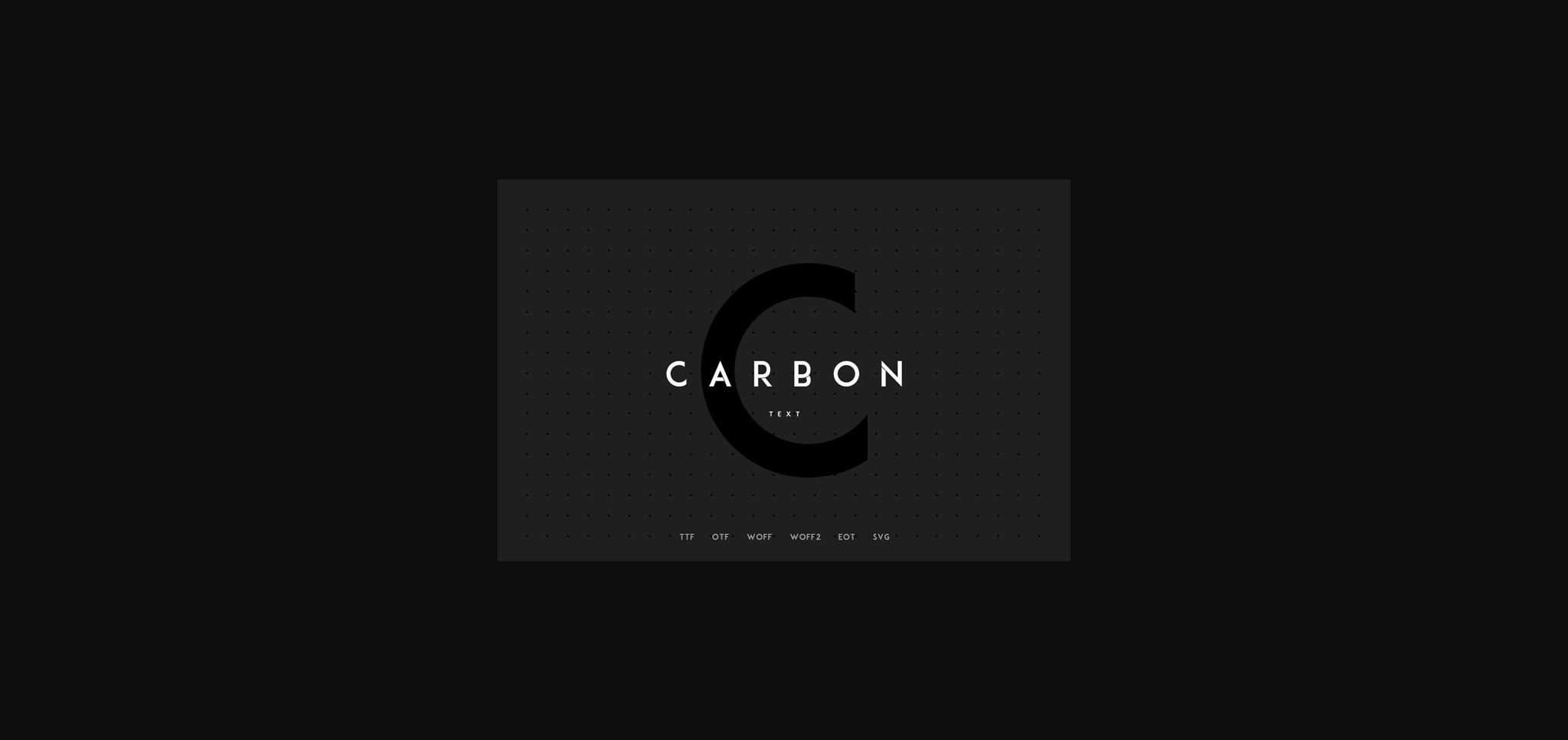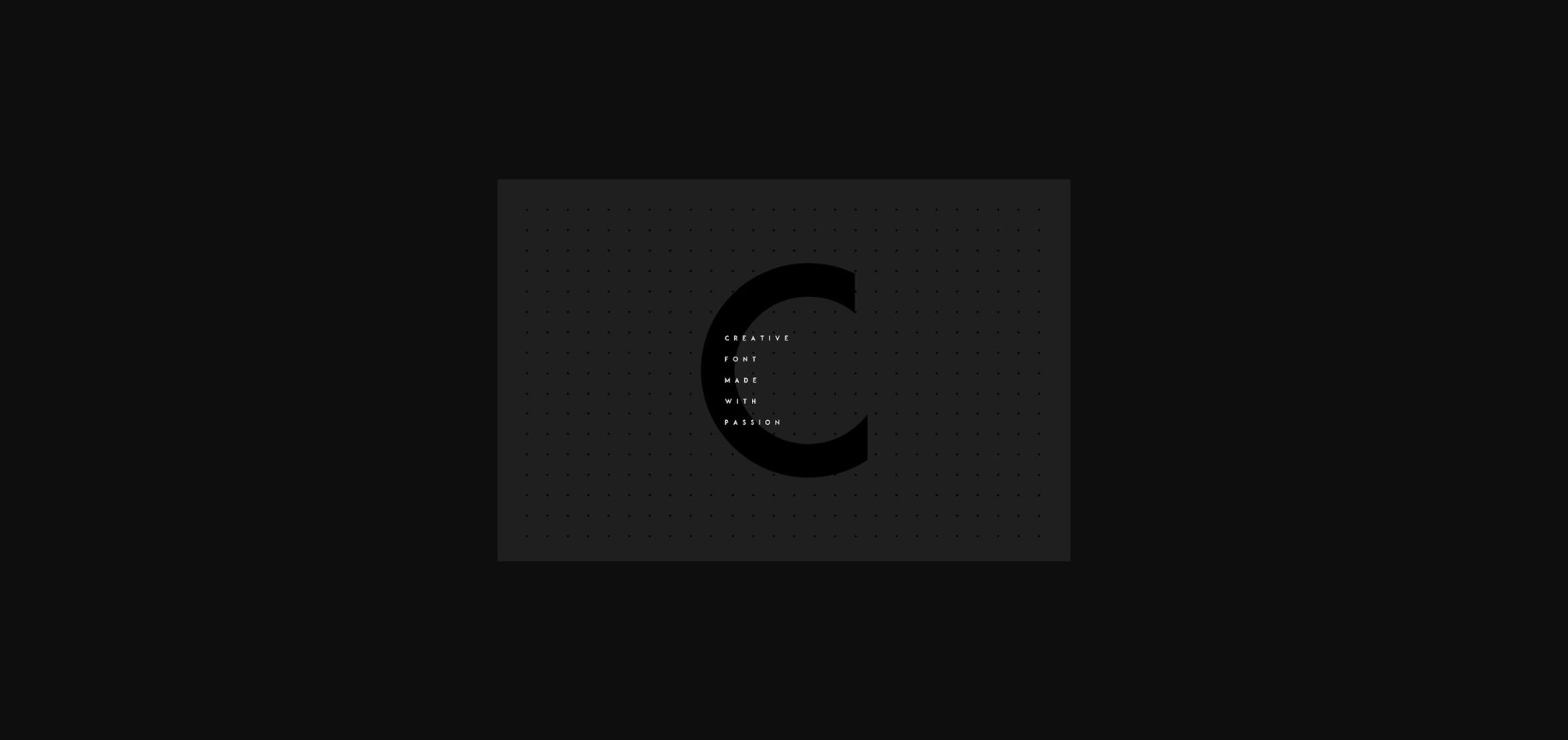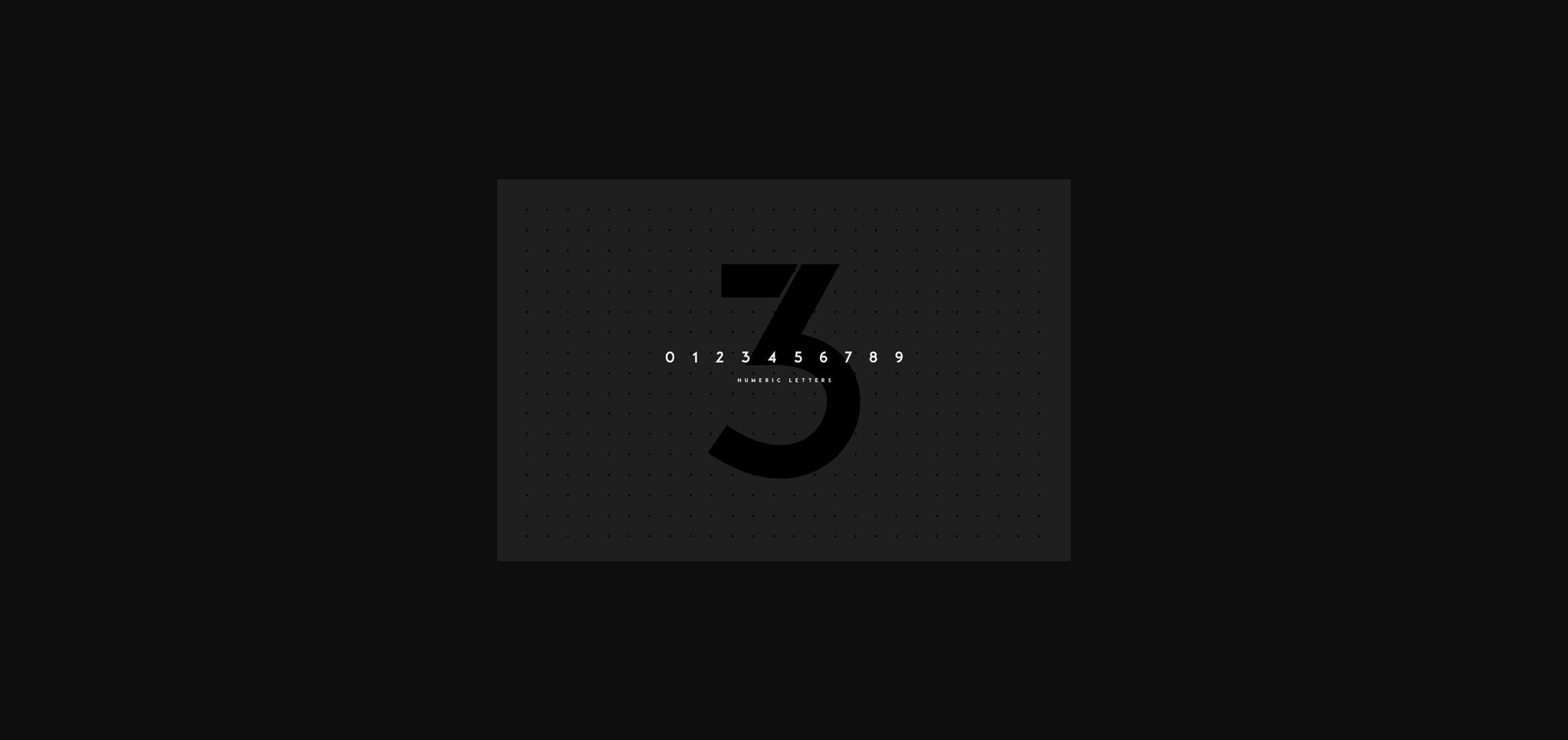
About Carbon Font
Carbon is a simple and clean sans serif font. Its natural and unique style makes it incredibly fitting to a large pool of designs. The only limit is your imagination!